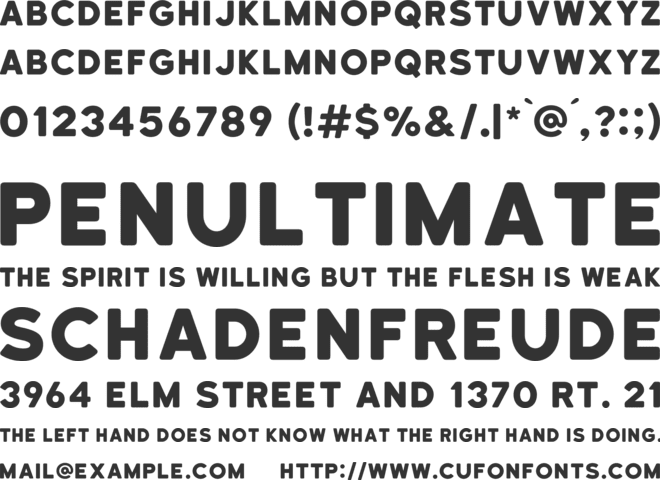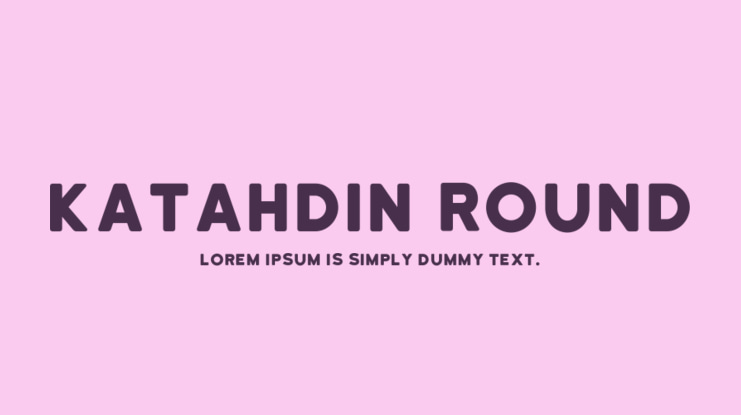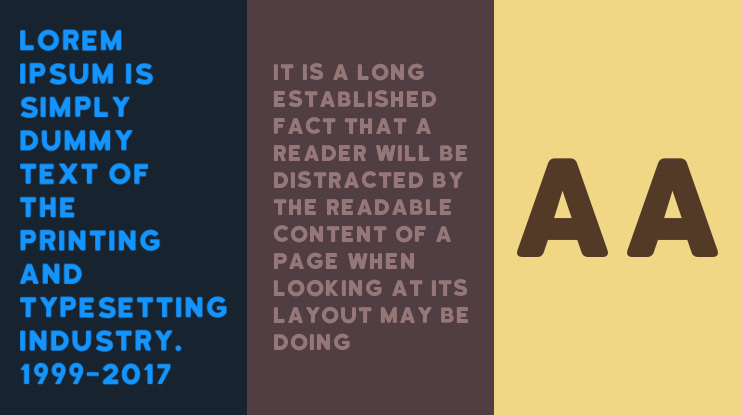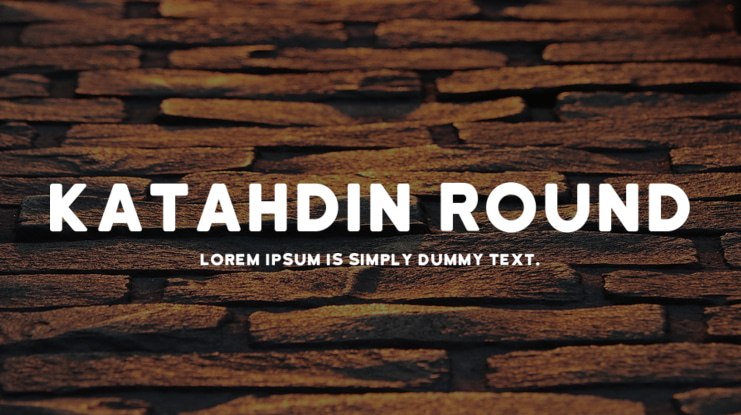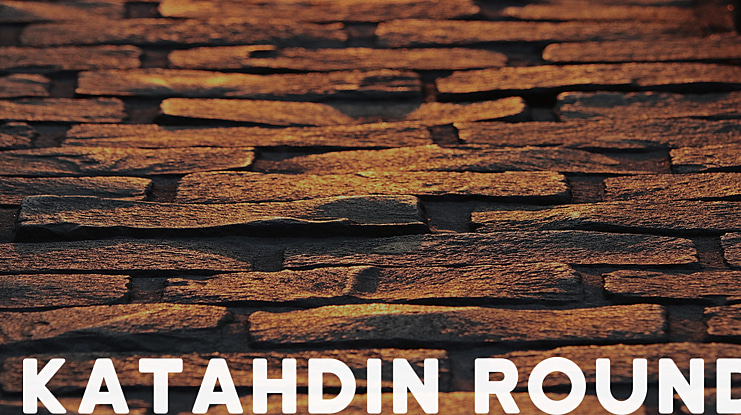
Katahdin Round Font
I love Katahdin Bold. Itâs a typeface that came together quickly last year, much to my surprise (and delight). Iâve been using it on my site since the day I finished it. Itâs actually been pretty popular lately on Creative Market, which enabled me to work on a new free style, and that is what Iâm giving away now.
Itâs pretty basic: rounded corners. A simple change, but it makes a huge impact. Youâre free to use it on personal and commercial products. You donât have to credit me (but you can). Itâd be great to see what you do with the font (send a tweet my way â @finck). Also, if youâre a type designer (or contributor, or interested in learning) I open sourced this on Github. Feel free to improve upon what Iâve started.